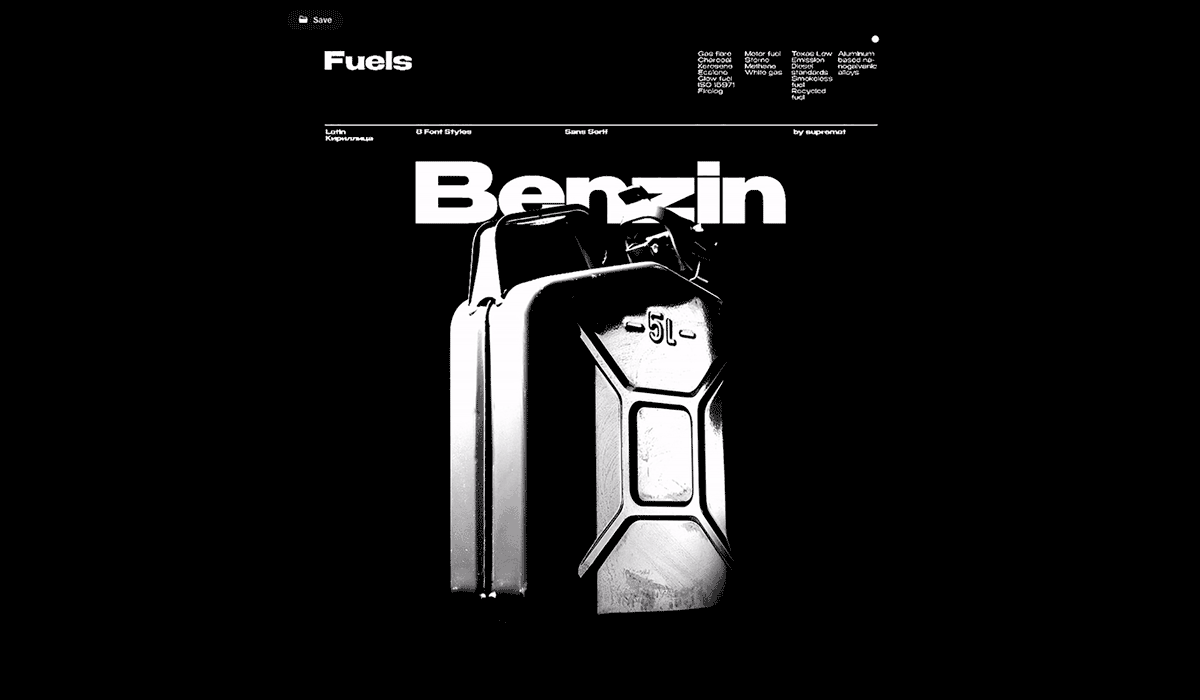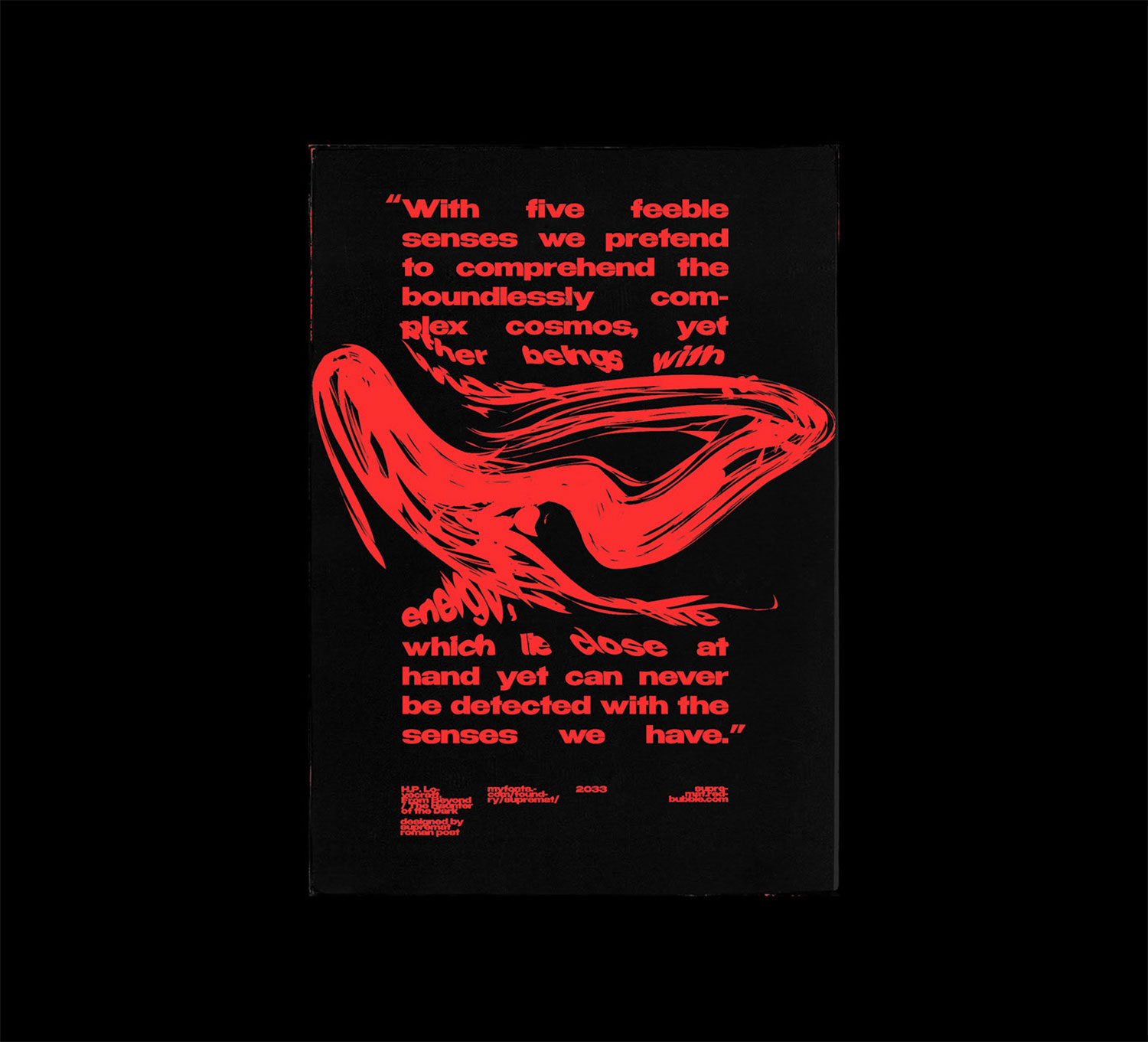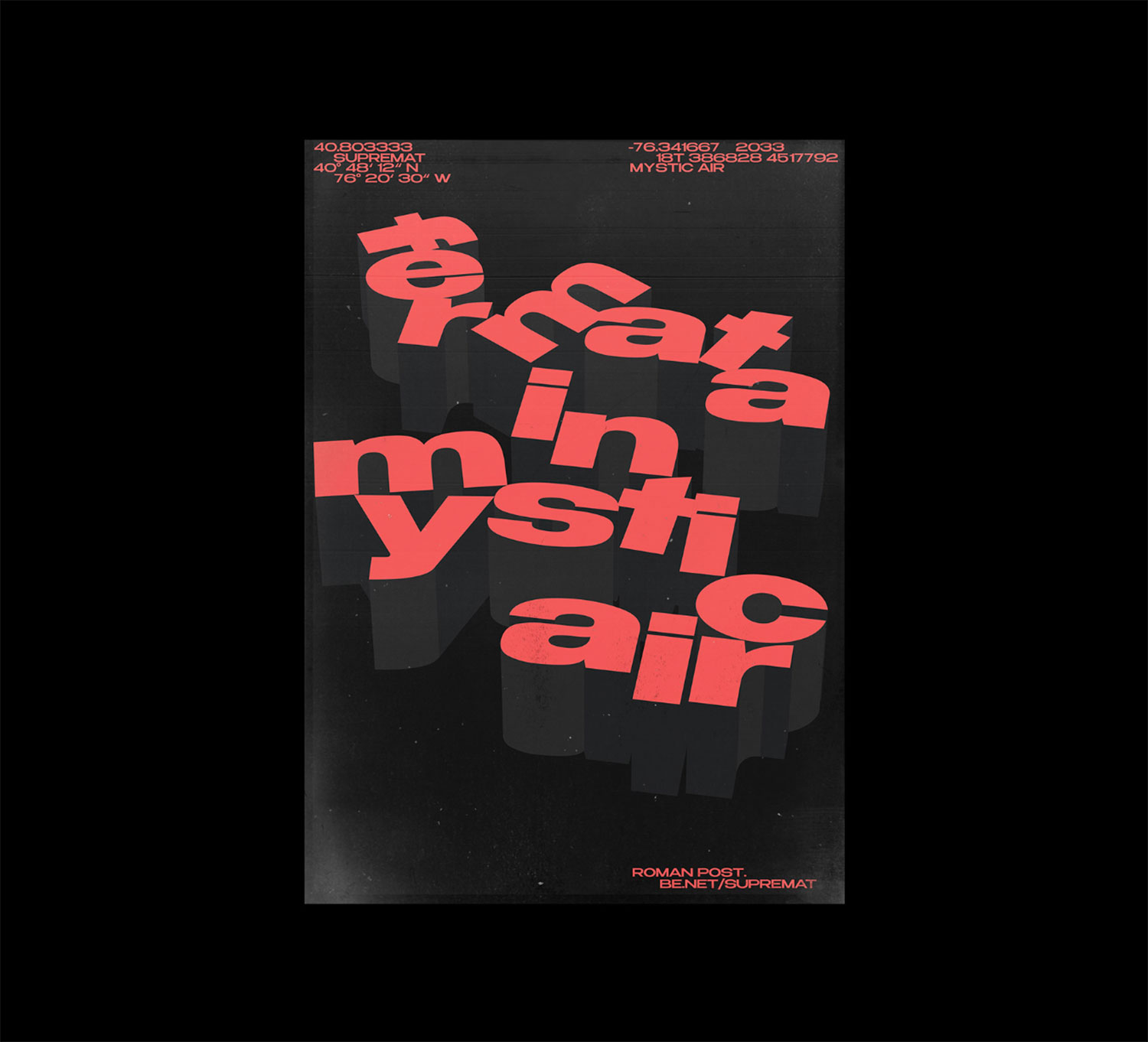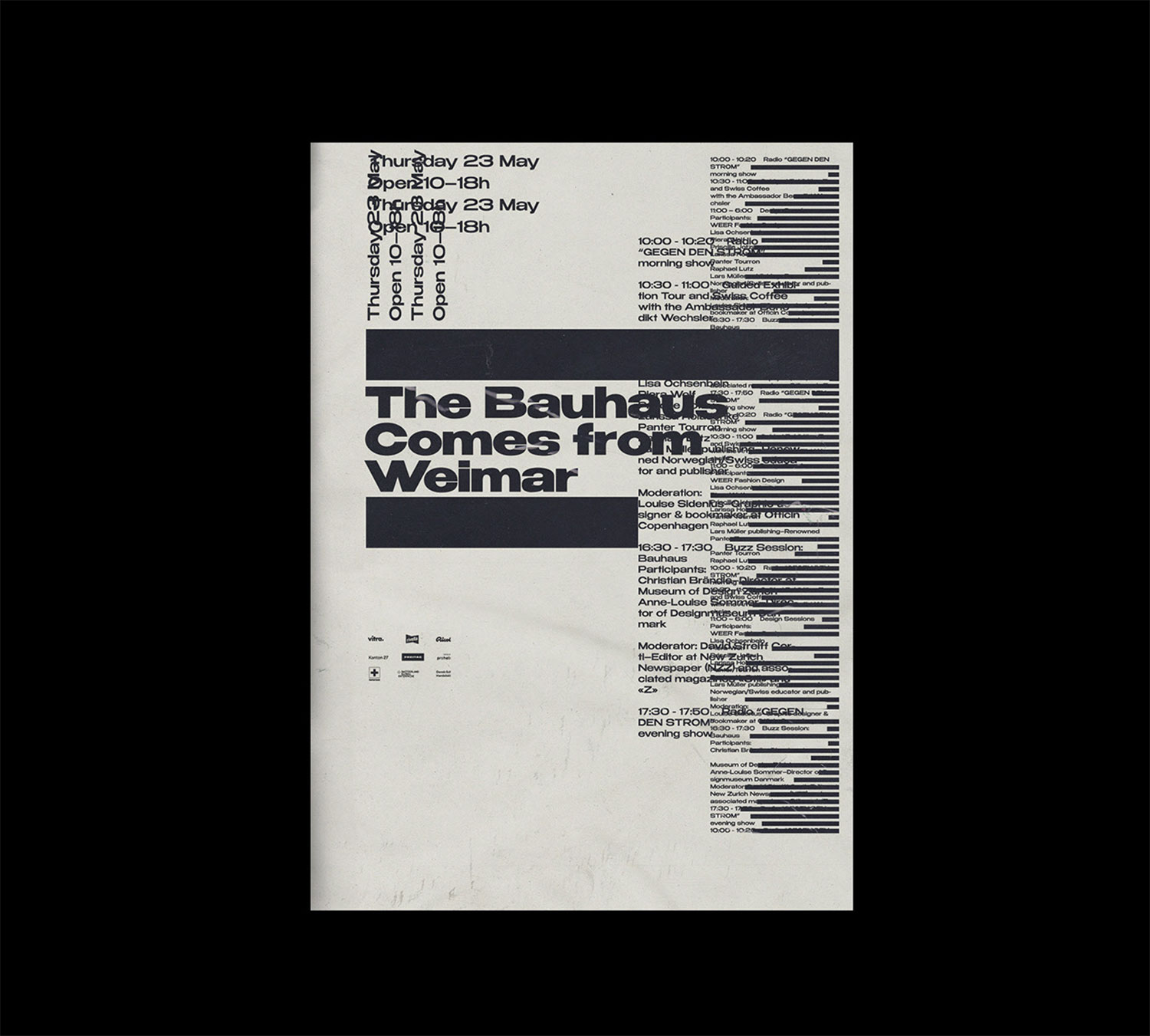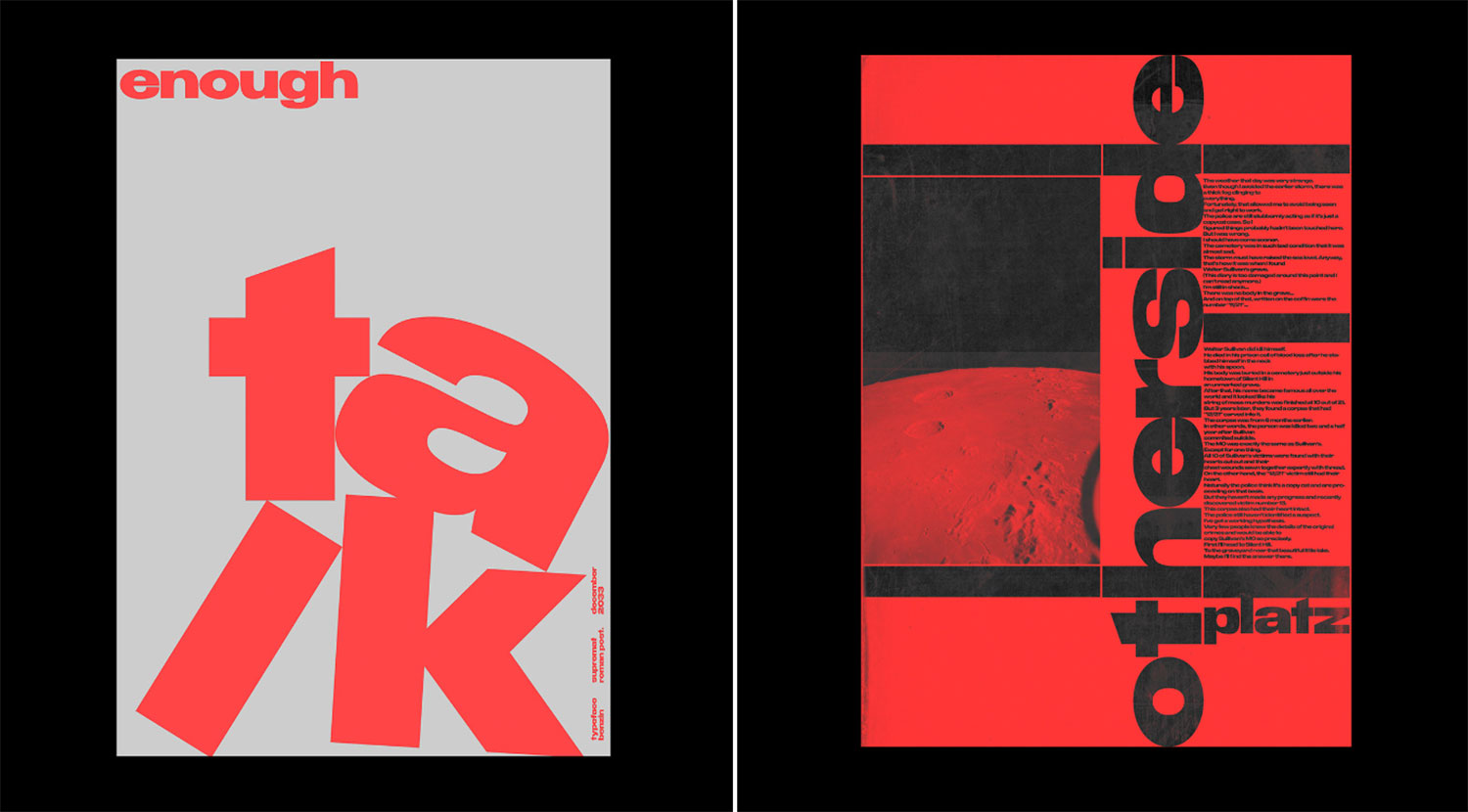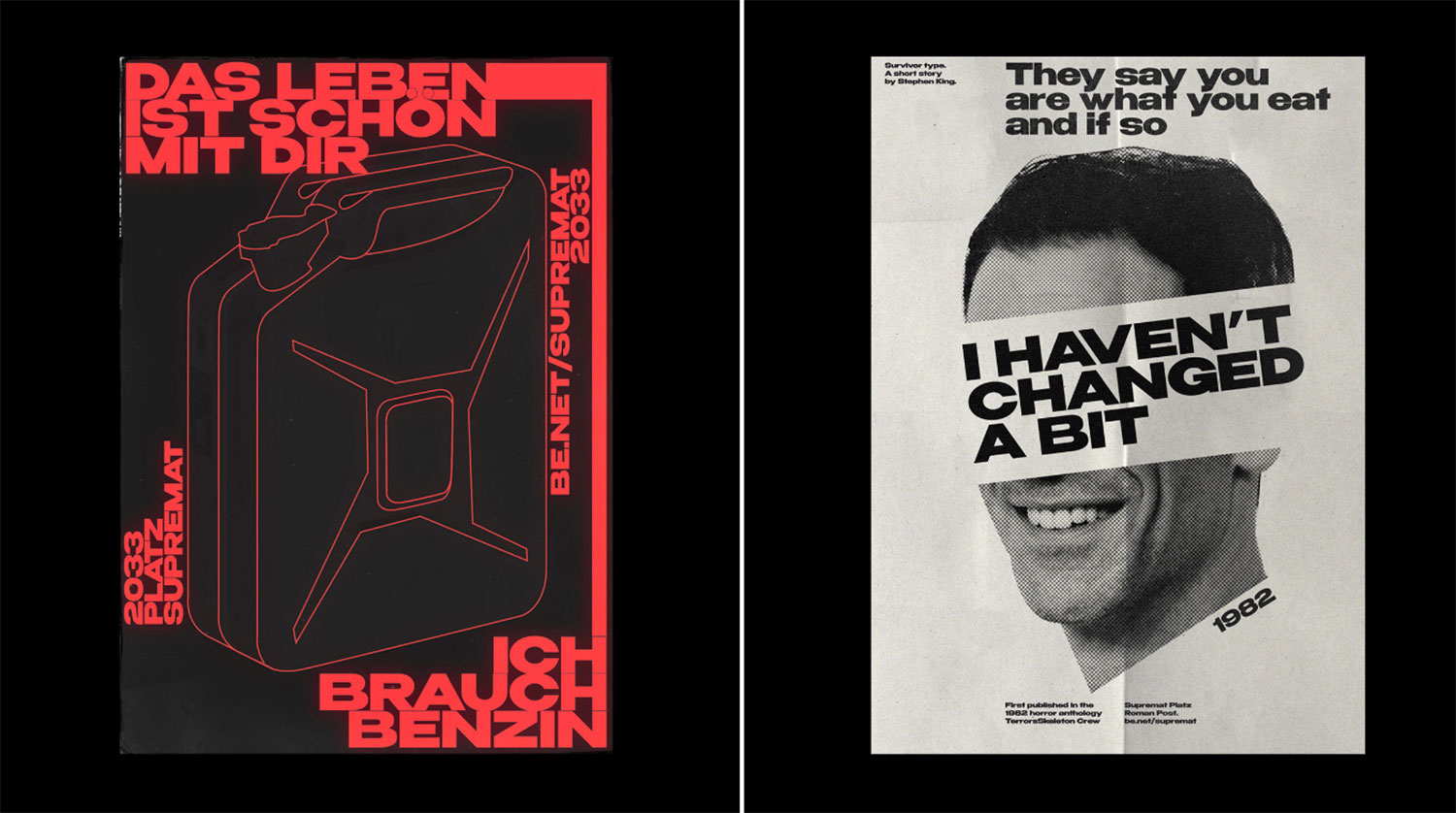
What better way to celebrate the recent small global oil price dip than with this super cool BENZIN typeface designed by Roman Post. Let's remind ourselves of the good ol/u2019 days when 1 gallon was half the price. And while we are speaking of Gas - check out this (holy) Shell logo rebranding proposal we found.
Creator: Roman Post